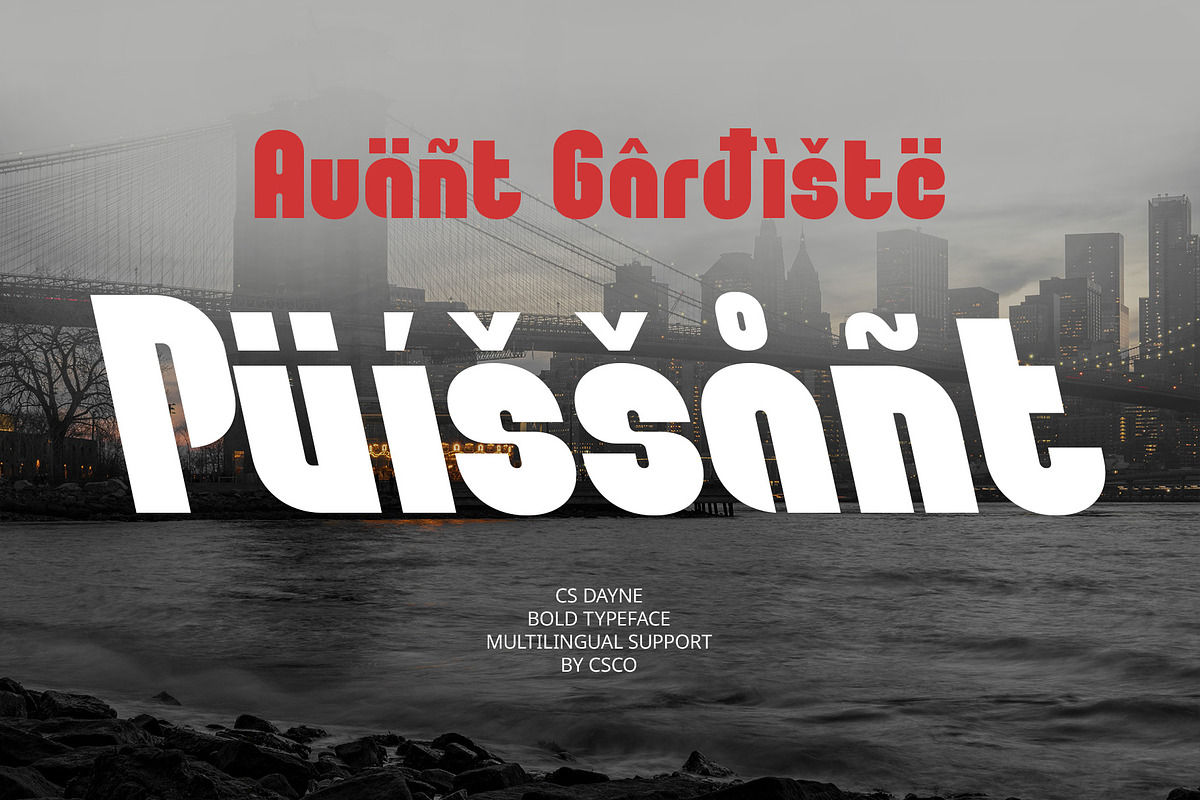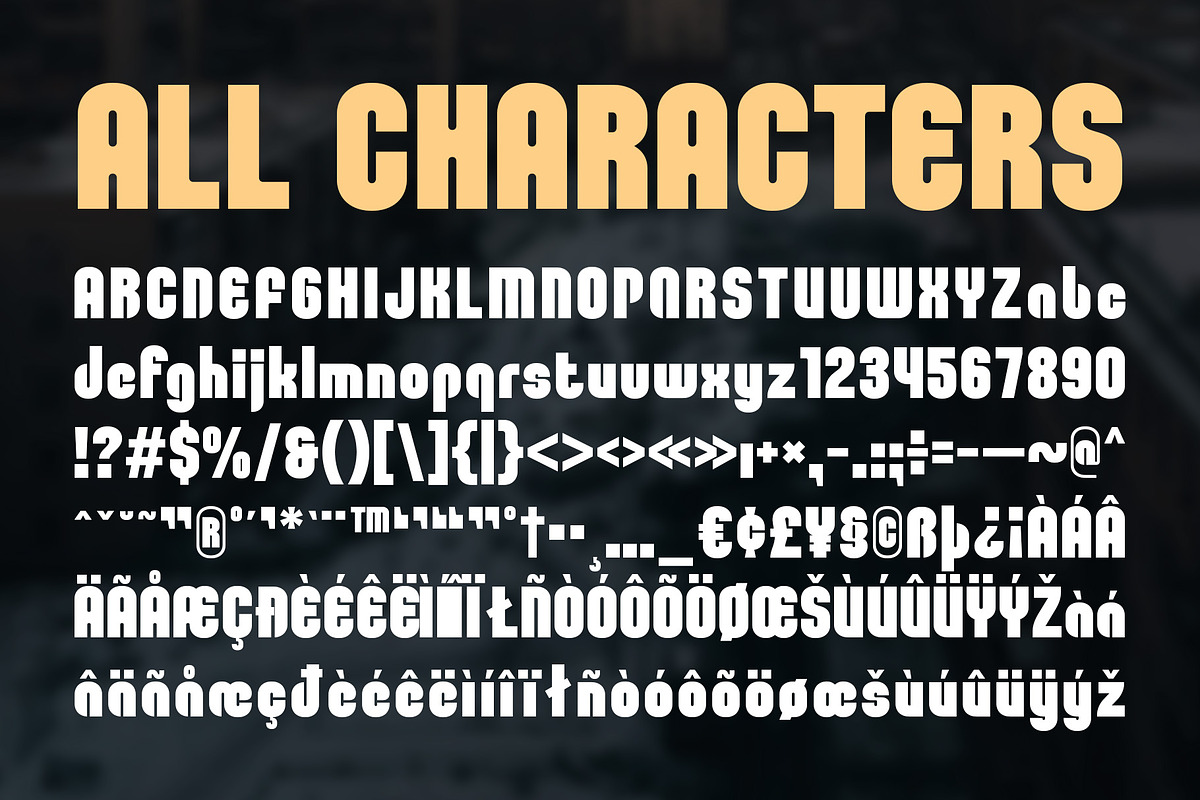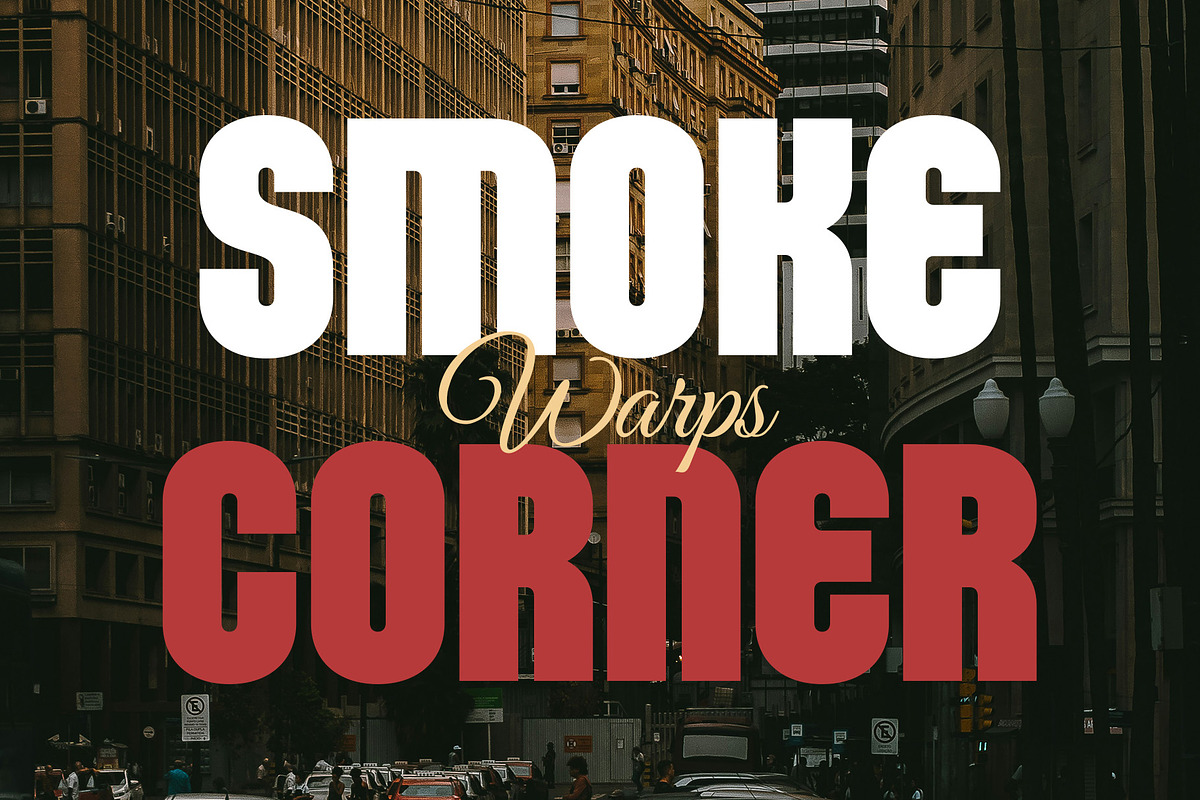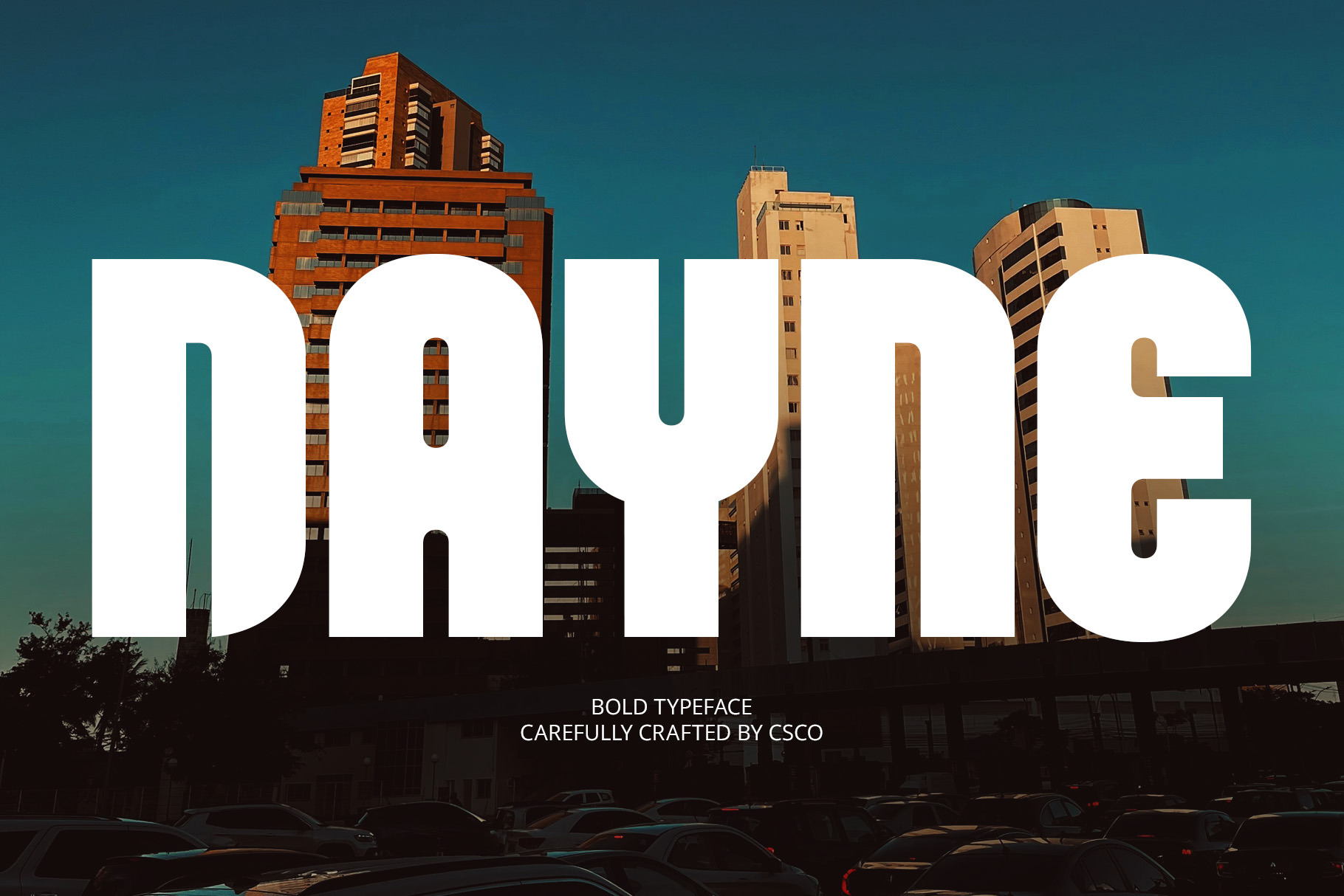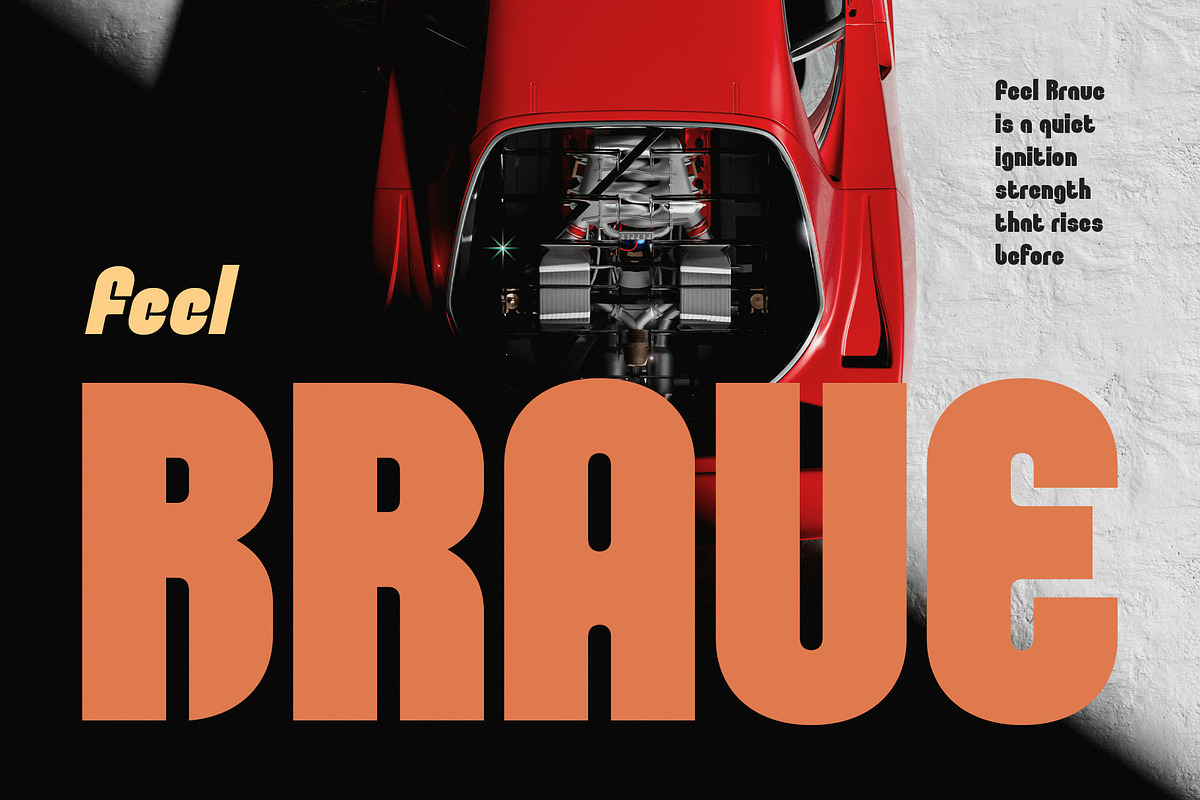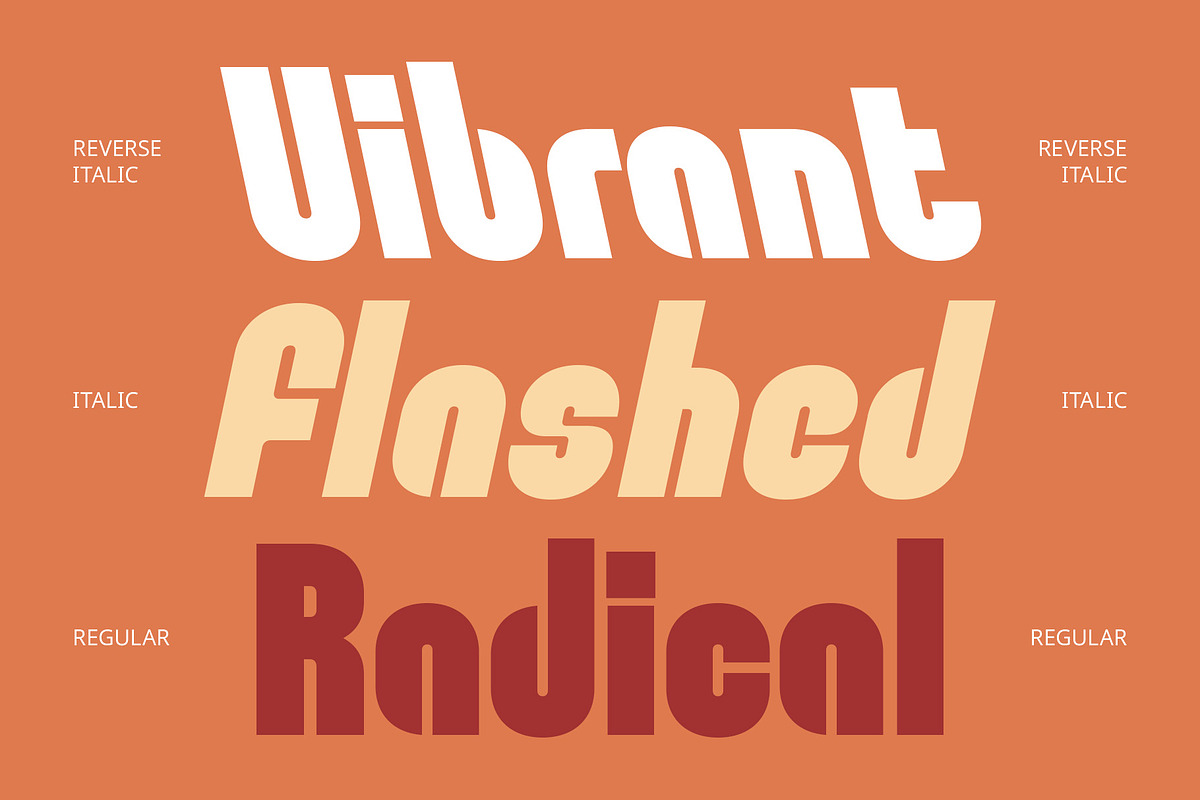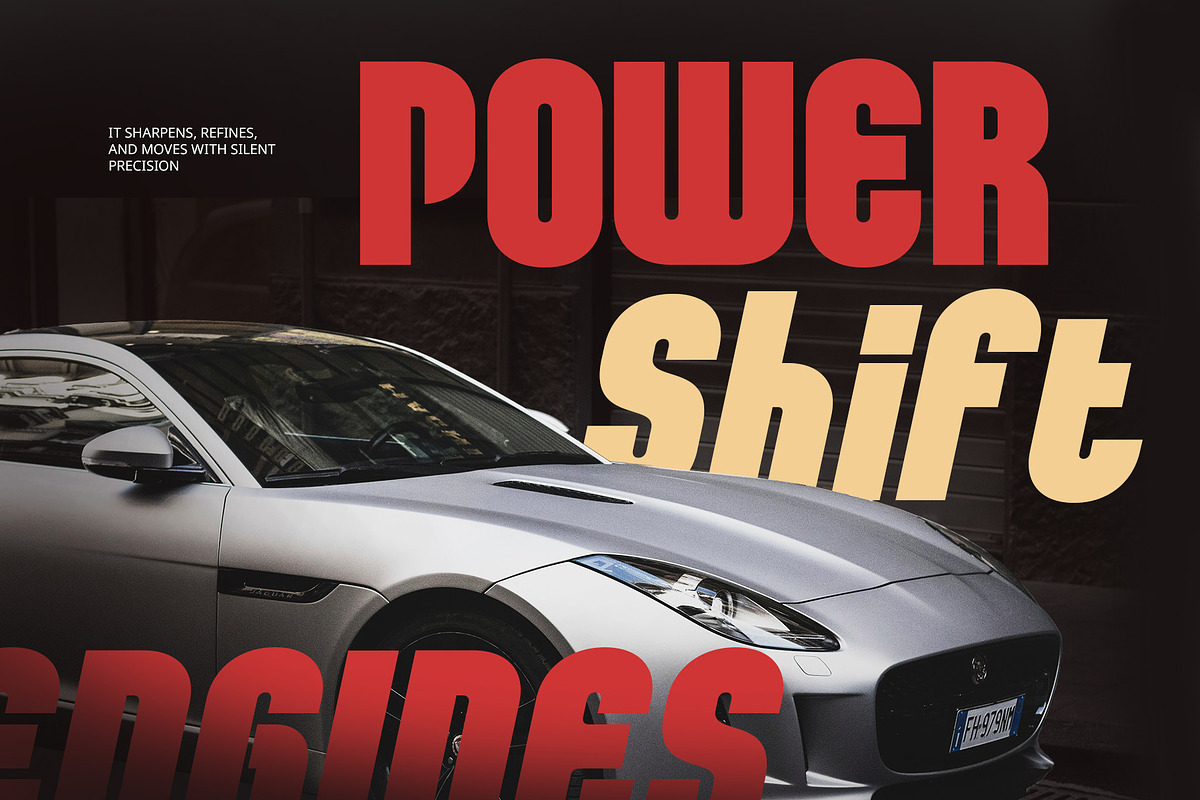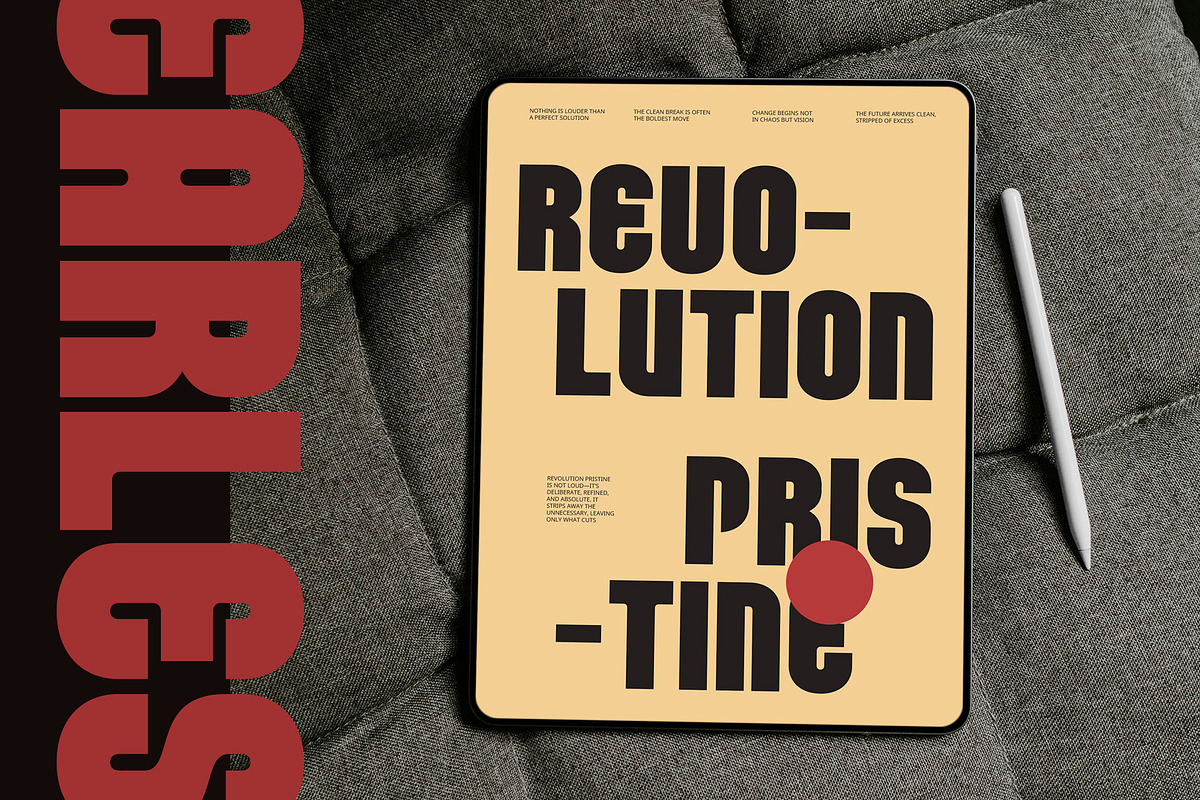
CS Dayne – Bold Font
CS Dayne – Bold Font: Where Strength Meets Futuristic Precision
Bold, Geometric Design with Futuristic Edge CS Dayne is a modern sans-serif font defined by its bold weight and geometric construction. With sharp angles and structured curves, it delivers a powerful, contemporary look that feels both assertive and forward-thinking. The bold presence of each letterform commands attention, making it perfect for modern designs that demand clarity and impact.
Clean Structure for Modern Versatility Designed with simplicity and precision, CS Dayne features clean lines and a balanced rhythm that enhance readability across different mediums. Whether on digital screens or in print, its consistent geometry ensures a professional and versatile appearance, fitting for everything from branding to editorial layouts.
Futuristic Style for Innovative Impressions CS Dayne’s futuristic flair makes it especially suitable for tech-focused and cutting-edge creative projects. Its minimal yet commanding style adds a sleek, modern aesthetic to any design, ideal for brands and interfaces that want to convey innovation, confidence, and forward momentum.
Ideal for Bold Branding and Digital Interfaces Whether you’re building UI/UX interfaces, crafting dynamic posters, or shaping a bold corporate identity, CS Dayne delivers high-impact results. Its strong and modern character makes it a reliable choice for contemporary designers who seek a font that combines strength, precision, and visual clarity.
- CS Dayne Regular
- CS Dayne Italic
- CS Dayne Reverse Italic